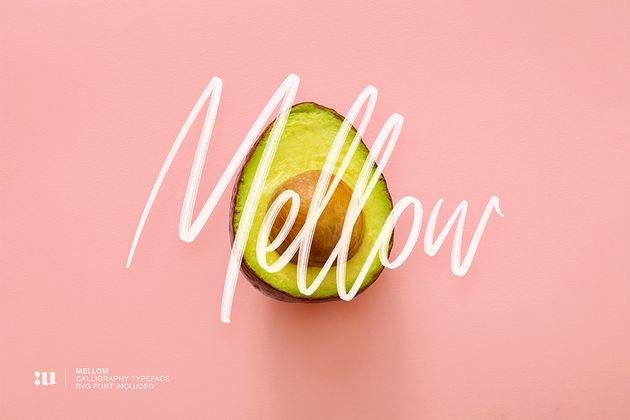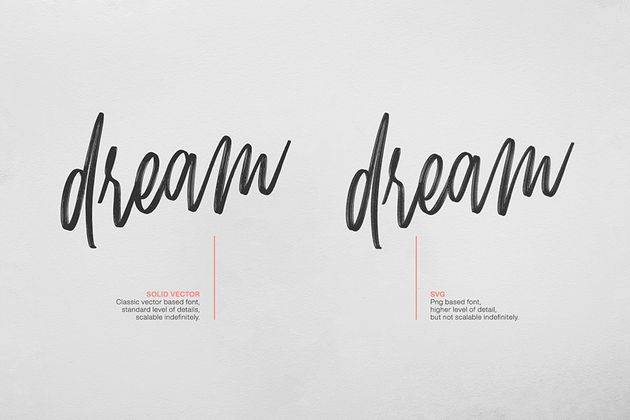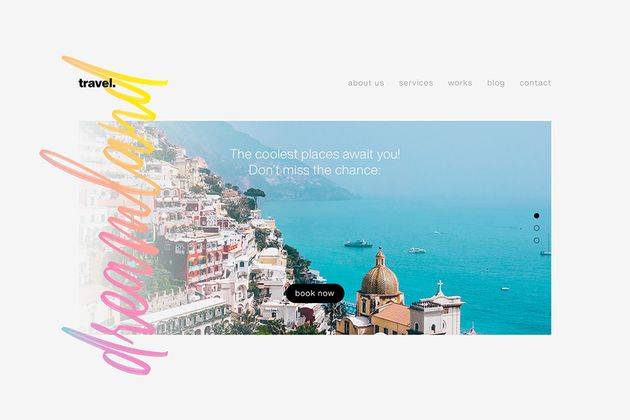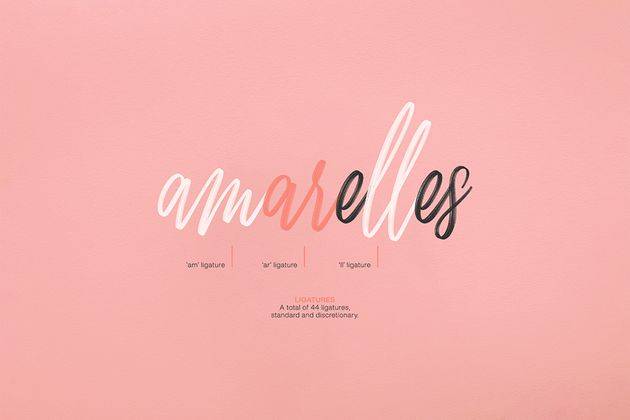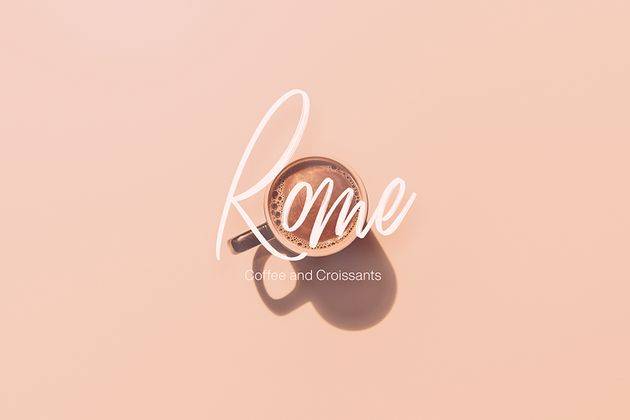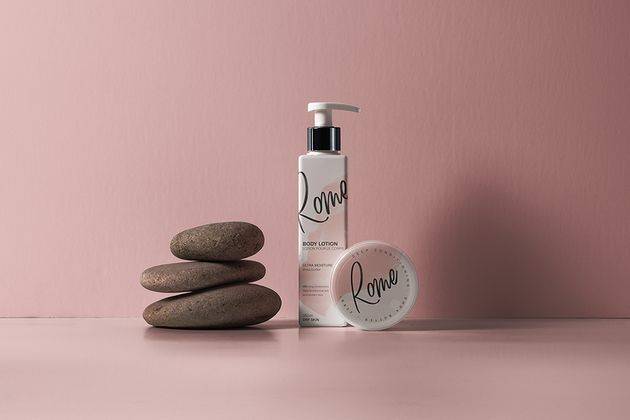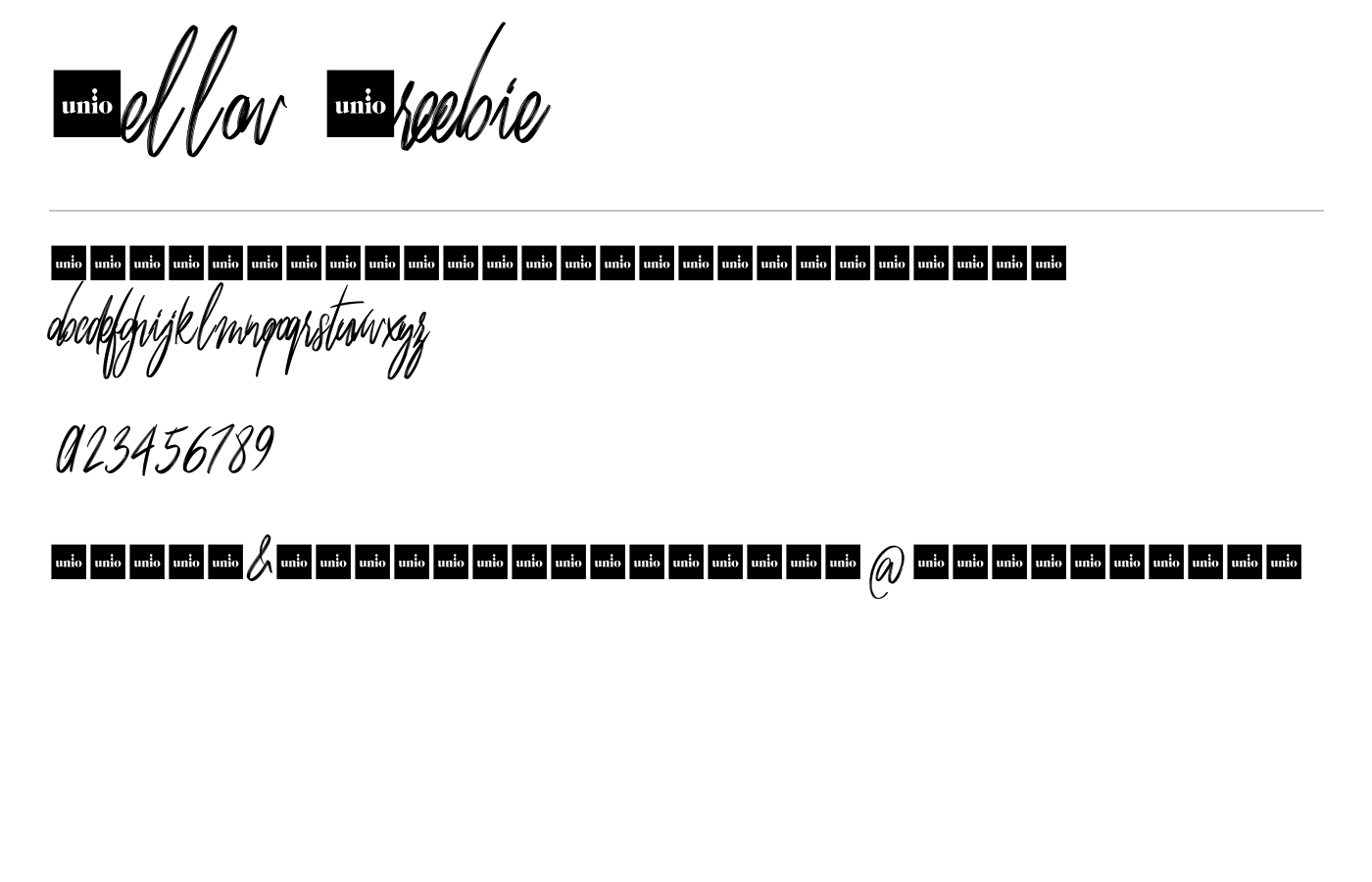
Mellow Brush Script is an elegant and flowing handwritten font characterized by its slender, high-contrast strokes that mimic natural brush calligraphy. With its tall, narrow letterforms and a smooth, connected style, it conveys a personal and artistic feel, making it ideal for creative branding, invitations, and expressive headlines. This font works best where a stylish, modern handwritten touch is needed to add warmth and sophistication.
Mellow Brush Script Font
About Mellow Brush Script Font
| Font family | Mellow Brush Script Font |
| Release date | 2019-08-19 |
| Designer | Bruno Pierini, Nicola Manzari |